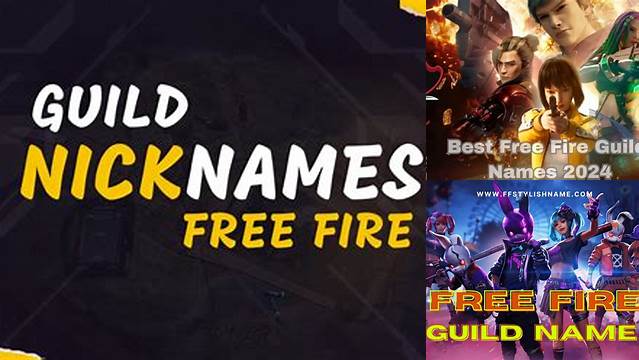
Free Fire Guild Name Font: Your Ultimate Guide
Free Fire Guild Name Font: Elevate Your Guild's Identity
Hey Free Fire fanatics! Let's dive into something super important for any guild looking to make a statement: the perfect Free Fire guild name font. Your guild's name isn't just a label; it's your brand, your identity, and what players see when they think of your squad. A cool font can make your guild stand out, making it memorable and attracting new members. We're going to break down everything you need to know, from picking the right style to where you can find these awesome fonts, and how to use them in Free Fire. Get ready to level up your guild's presence!
So, why is a Free Fire guild name font so crucial? Think about it: you're battling it out, strategizing, and building a community. The name and font are the first impressions. A well-chosen font can communicate your guild's personality, whether you're aiming for a tough, edgy look or a more playful, friendly vibe. It's about creating a visual identity that resonates with potential members. Moreover, the font can contribute to your guild's overall aesthetic. It can be the difference between blending in and standing out in a crowded field. It’s a way to show off your creativity and attention to detail, which are important in any online community. Basically, the right font is a silent ambassador, always representing your guild.
Choosing the right Free Fire guild name font can feel overwhelming, but don't worry, we've got you covered. First, consider your guild's personality. Are you a group of serious, competitive players? Maybe a bold, sharp font will suit you. Think of fonts like "Impact" or "Arial Black." These convey strength and dominance. On the other hand, if your guild is more about having fun and making friends, something friendlier might be better. Try fonts like "Comic Sans" (yes, it has its place!), or "Bubble Letters." They give off a welcoming vibe. Also, consider readability. Some fonts are stylish but hard to read, especially in the fast-paced environment of Free Fire. You want a font that's easy to see and understand at a glance, without straining your eyes. Don't forget the impact of color either. If you're using a text generator, you may have the option to select a color. Make sure it contrasts well with the background. For example, light text on a dark background works much better than light text on a light background.
Finally, think about where your guild will use the name. Is it just in-game, or will you be using it on social media, too? If you plan to use the name everywhere, make sure the font works well across different platforms. Also, don't overthink it. The perfect font is the one that feels right to your guild. Get the members involved, and have them vote on a few options. It's a team effort, after all!
Finally, for those looking for something truly unique, consider custom font design. This is the most advanced option. If you want a font that's exclusive to your guild, you can hire a graphic designer to create a custom font. This provides the utmost customization, ensuring your guild's name stands out from the crowd. It's a more expensive option, but it offers maximum control over your guild's branding. This route gives you a one-of-a-kind font that perfectly represents your guild's personality. If you have a specific vision in mind, this is the best way to make it a reality. Custom fonts can be used across all your guild's branding elements, further unifying your image.
How to Use Your New Free Fire Guild Name Font
Okay, you've found the perfect Free Fire guild name font, now what? Let’s get into how to actually use it in the game, and some important things to keep in mind during the process. This part is important, so pay close attention, guys!
First, you'll need to use a text generator or a font app to create the stylized text for your guild name. Copy the text with the font you like. After the text has been generated, you will copy the text. Now, you'll need to go into the Free Fire game and change the guild name. Open the guild settings and look for the option to change the guild name. Free Fire has limitations when it comes to changing guild names. Ensure that you have enough diamonds in your account to make the changes. The game will likely charge you a fee in diamonds to change the guild's name. Paste your stylized text into the name field. Make sure the font displays correctly in the game before you finalize the change. You may need to try different text generators or fonts until you find one that works. If the font doesn't show up properly or the text is not displayed, it could be a compatibility issue. Try another font and repeat the process. Double-check everything before confirming the change! Once you confirm the change, the new font should be visible to all members and to everyone who views your guild. Remember that changing your guild name too often can get expensive, so choose wisely.